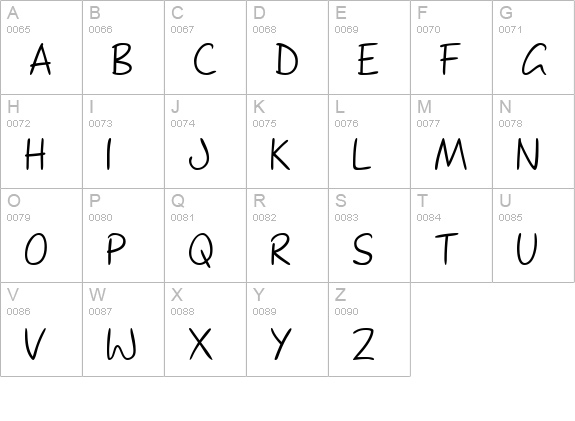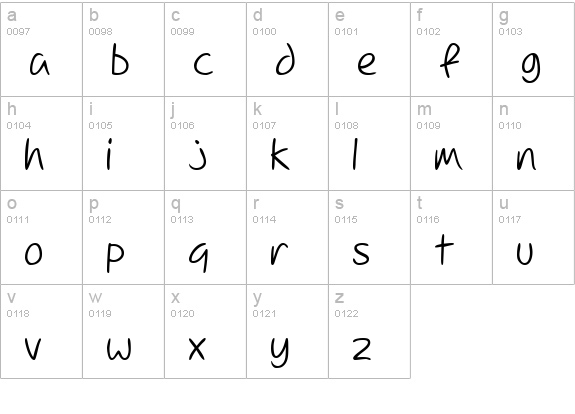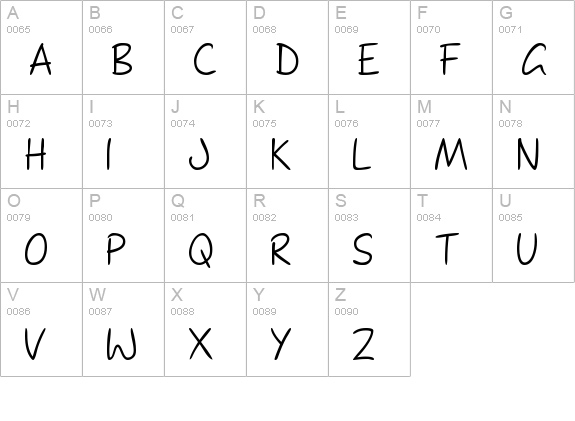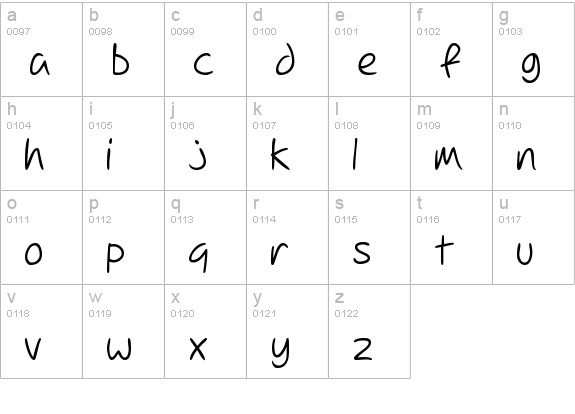
Dupree Light Font Details
Dupree Light is a refined, elegant variant in the Dupree typeface family \xE2\x80\x94 well suited to elegant body text, refined sub-headings, and luxury branding.
Introducing Dupree Light font, a sleek and elegant typeface that exudes sophistication and modernity. With its clean lines and refined curves, Dupree Light is the perfect choice for adding a touch of class to any design project. Whether you're working on a branding campaign, editorial layout, or website design, this versatile font will elevate your work to the next level. What sets Dupree Light apart is not only its timeless aesthetic but also its accessibility. This high-quality font is available for free download at FontsMarket.com, making it a valuable resource for designers and creatives looking to enhance their projects without breaking the bank. Don't miss out on the opportunity to add Dupree Light to your font collection and unlock a world of creative possibilities.